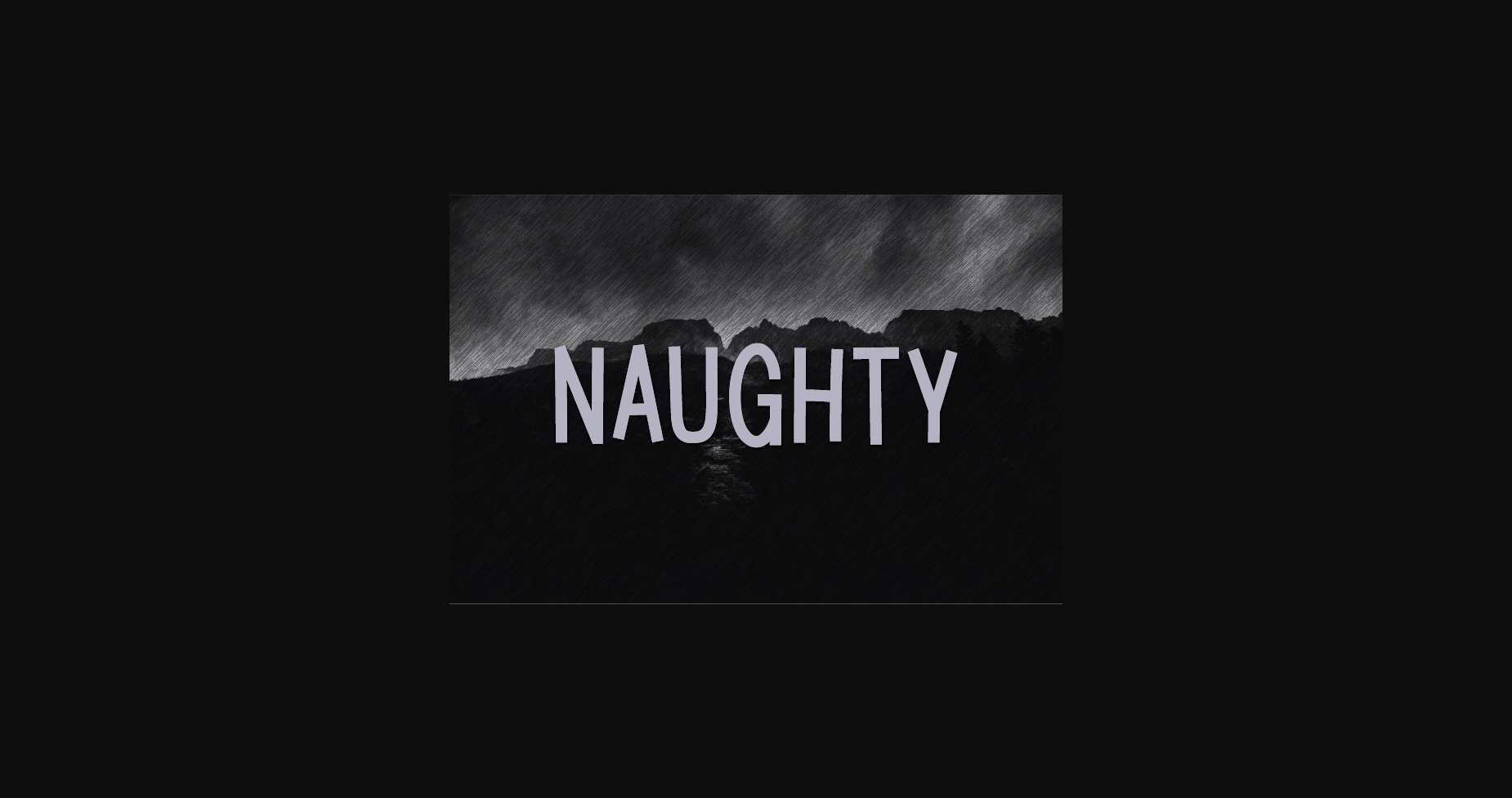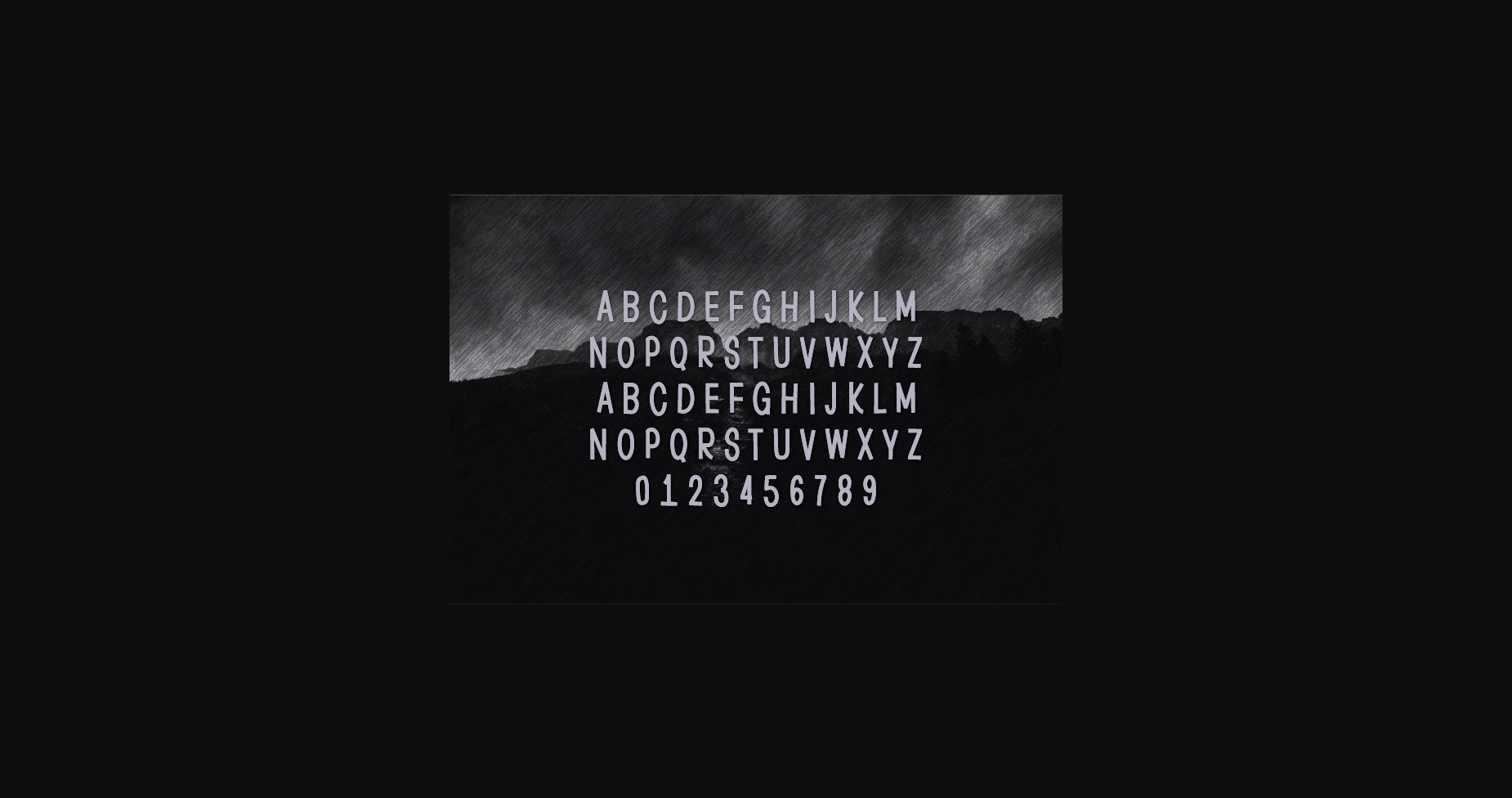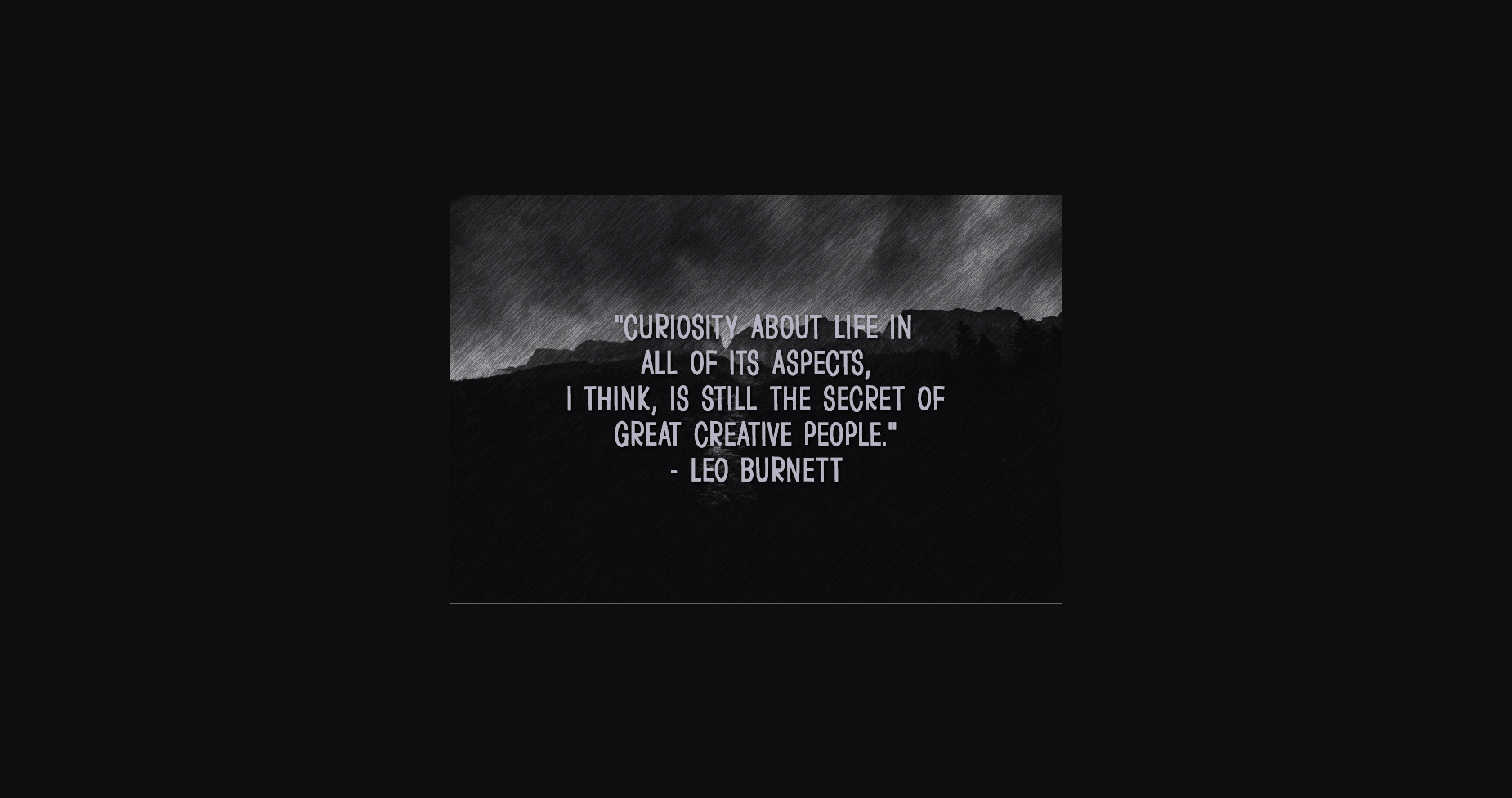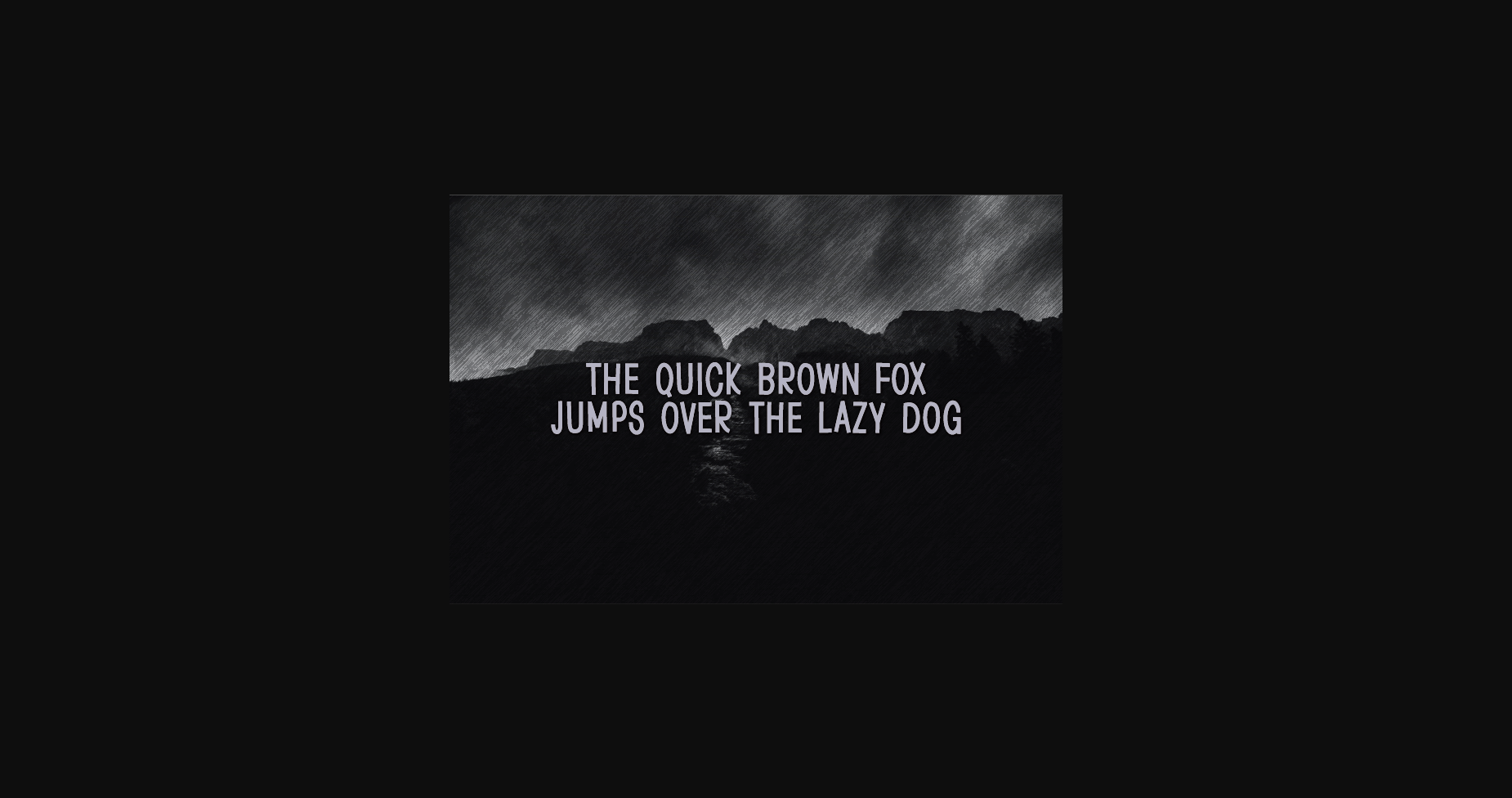
HomeSans Serif FontsNaughty Font Sans Serif Fonts Naughty Font FacebookXPinterestWhatsApp 1 of 6 ... Naughty Font Poster 2... Naughty Font Poster 3... Naughty Font Poster 4... Naughty Font Poster 5... Naughty Font Poster 6... About Naughty Font Naughty is an interesting and unique sans serif font perfect for quotes, notes, T-shirts, and many more. Add it to your font collection, and it will make your creative projects outstanding! DOWNLOAD NOW People also explored Spectrashell Fallen Font Story Tales Lemon Tea Font Smonthia Script Font Umbrella Font Balconies Font Fall in Love Font Forest Font 322 0 TagsNaughtyNaughty Font Previous articleAffectionate FontNext articleMysterious Font LEAVE A REPLY Cancel reply Comment: Please enter your comment! Name:* Please enter your name here Email:* You have entered an incorrect email address! Please enter your email address here Website: Save my name, email, and website in this browser for the next time I comment. Personal Use Free Mellow Personal Use Free Read more about this font Alinda Personal Use Free Read more about this font Gupis Personal Use Free Read more about this font Borg Personal Use Free Read more about this font BLOG Free vs Paid Fonts: Why Investing in Premium Fonts Is Worth It Free vs Paid Fonts: Why Premium Fonts Are Worth It in 2025 The debate of free vs paid fonts continues in the design world. While... To increase your work productivity, choose the most readable fonts. 5 Fonts That Will Dominate Design Trends in 2026 Transform Your Website: Elevate Your Typography with 7 Best Web Font Generators